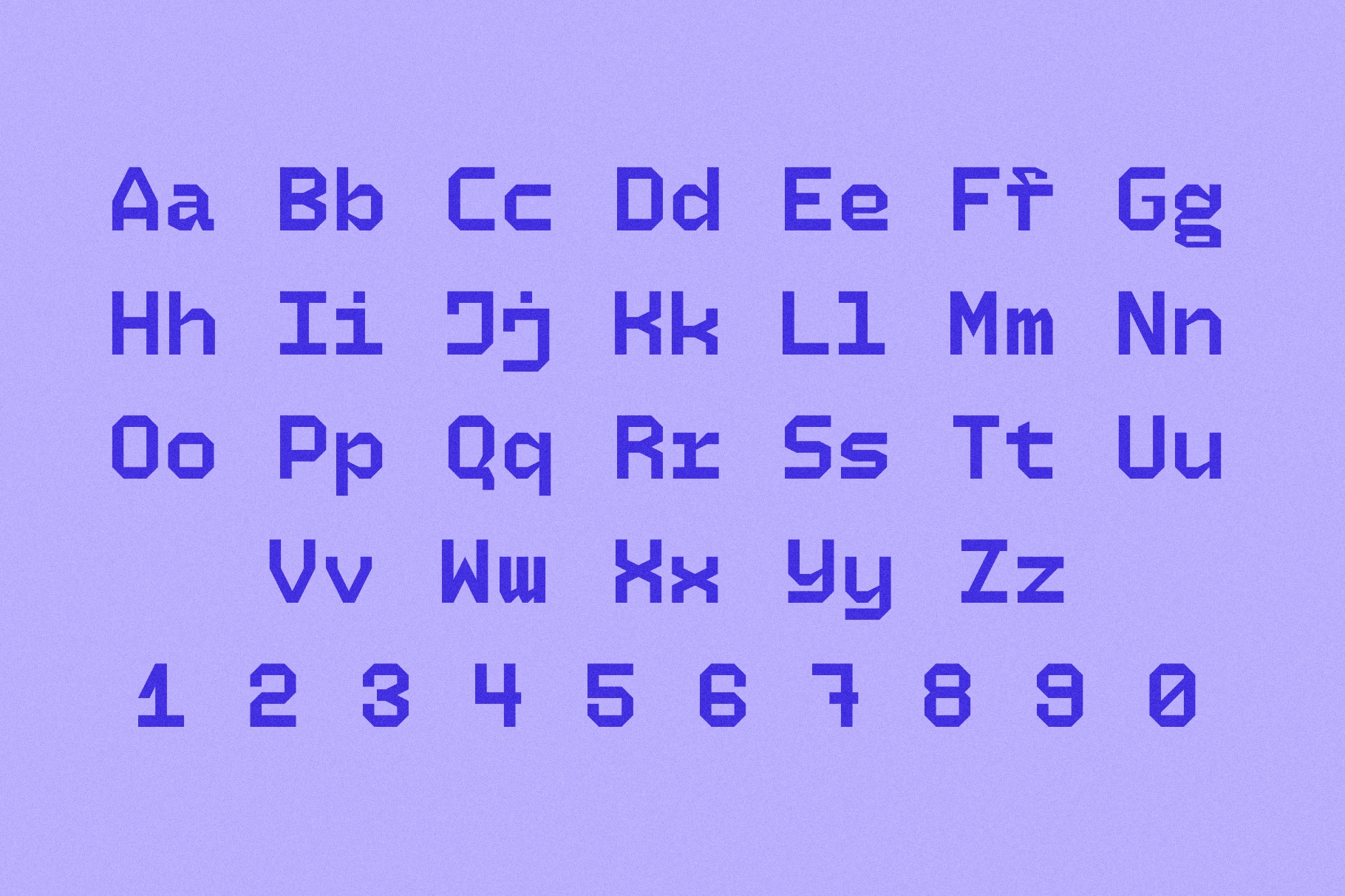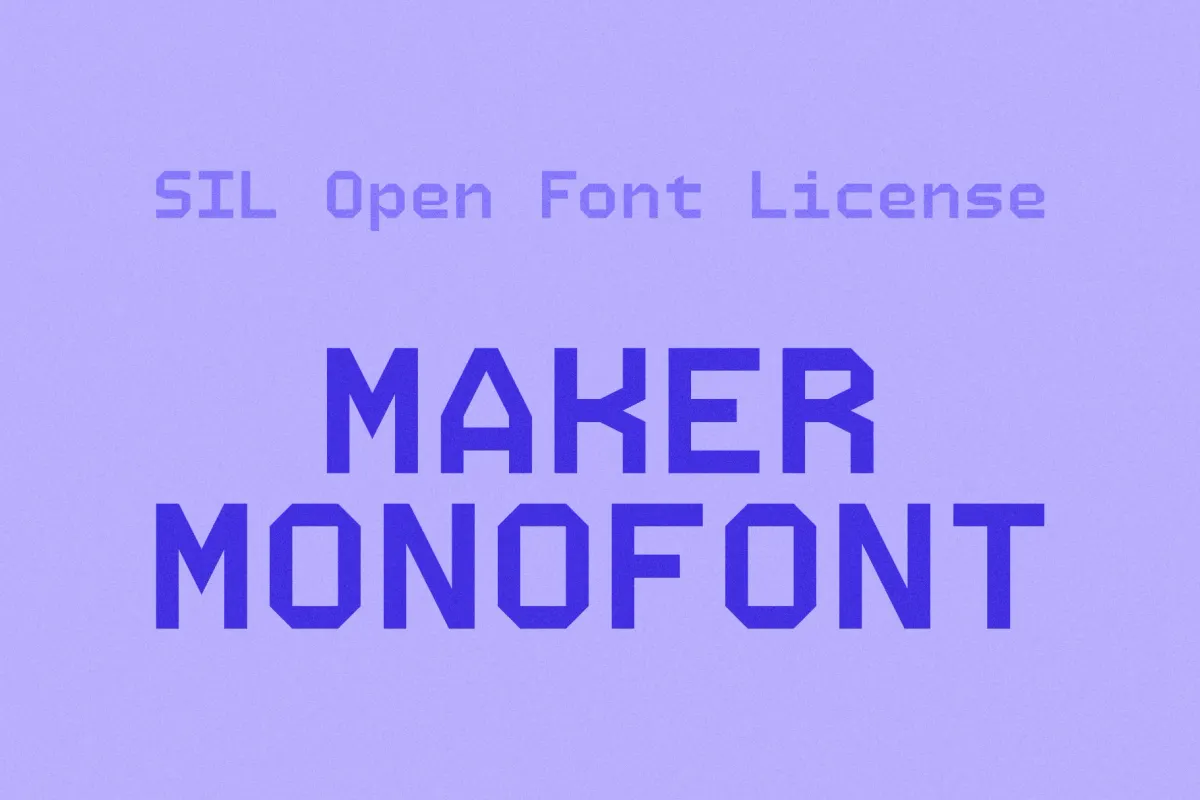
Maker Mono Font
Maker Mono pairs the rhythm of typewriter scripts with the clean logic of early UNIX terminals, and gives each monospaced character an industrial poise. The steady grid and open spacing suit code editors, developer branding, UI mockups, technical documentation, minimalist posters, infographics with code snippets, dev blog headers, dashboards, and data-heavy interfaces.